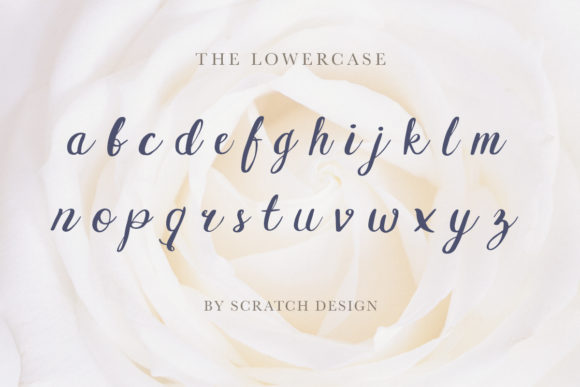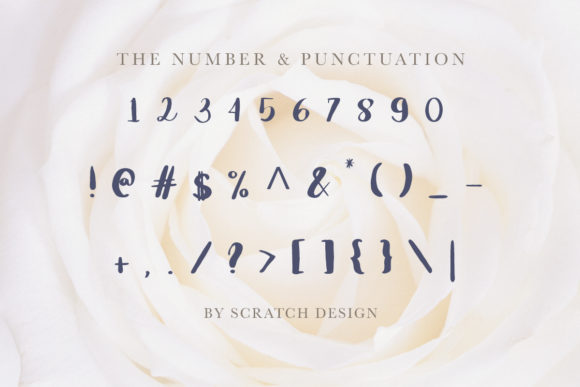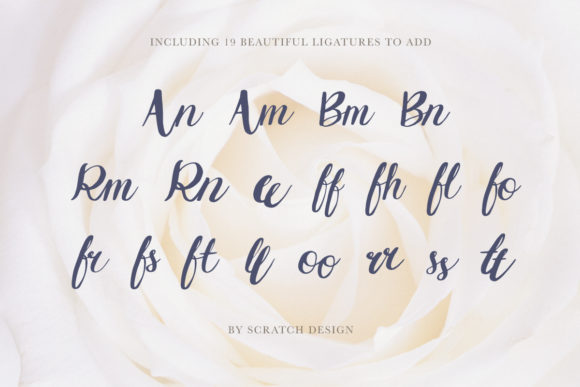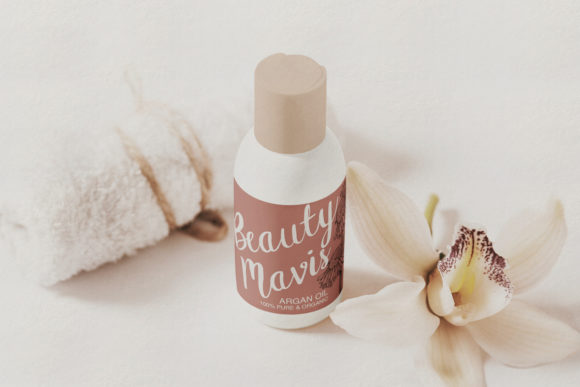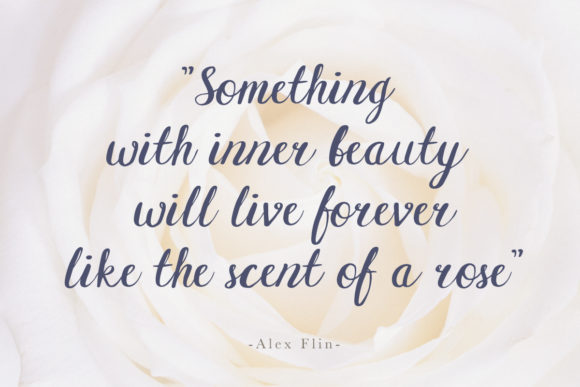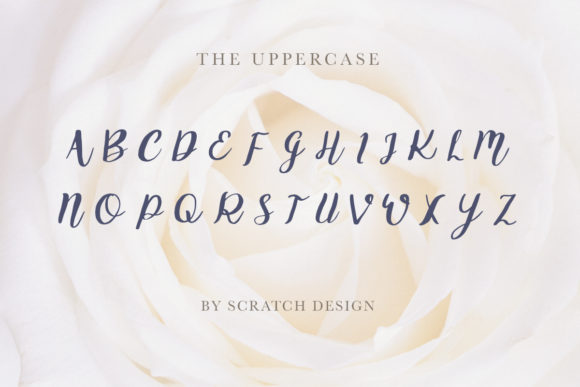
The Designer’s Delight: Griselda Font
I’ll never forget the time I was working on a project for a client who wanted a font that was both elegant and quirky. I spent hours scouring the internet for the perfect match, but nothing seemed quite right. That was until I stumbled upon the Griselda font. Its unique charm and authenticity immediately caught my eye, and I knew I had found the one. In this article, I’ll share my experience with Griselda, its features, and how to make the most of it in your designs.
- ✨ Authentic Handwritten Feel: Griselda has a beautiful, organic feel that makes it perfect for projects that require a personal touch.
- ✅ Unique Character: Each letter has its own distinct personality, making it perfect for designs that need a bit of whimsy.
- 💫 Highly Versatile: Griselda works well in a variety of contexts, from headings and titles to body text.
While Griselda is an amazing font, it’s not without its quirks. Here are a few things to keep in mind:
- ⚠️ Legibility at Small Sizes: Griselda can be a bit tricky to read at very small sizes, so make sure to test it thoroughly before finalizing your design.
- 🤔 Limited Formality: Griselda’s handwritten nature makes it less suitable for very formal or corporate designs.
Griselda was designed with the intention of capturing the essence of handwritten text. Its creator aimed to create a font that felt authentic and personal, while still being highly legible and versatile. The result is a font that feels both modern and timeless.
| Font Name | Griselda Font |
| Author | Scratch Design |
Q: What makes Griselda unique?
A: Griselda’s unique charm lies in its authentic handwritten feel and highly legible design.
Q: Is Griselda suitable for body text?
A: While Griselda can be used for body text, it’s best suited for headings and titles due to its unique character and potential legibility issues at small sizes.